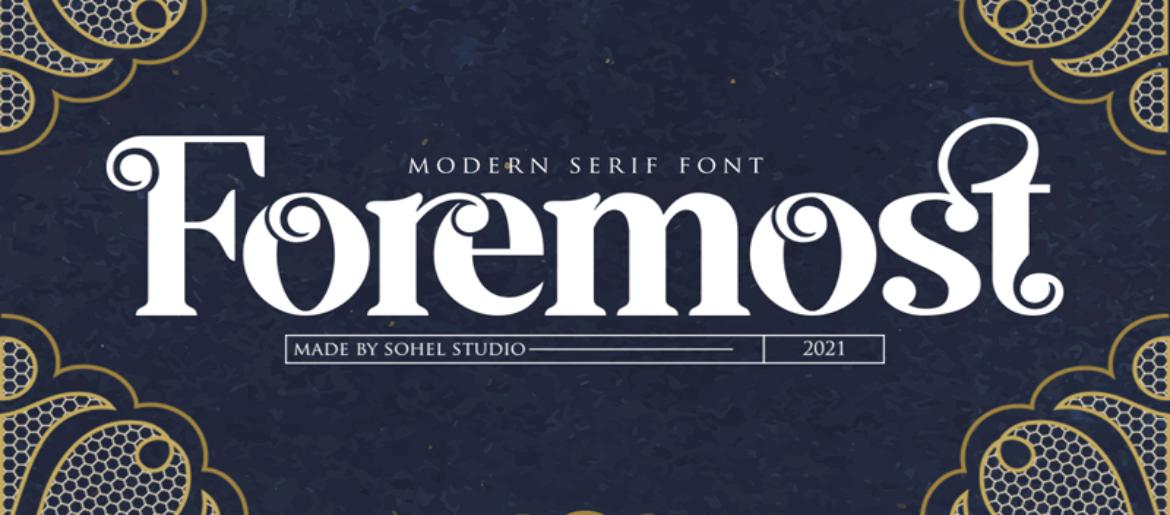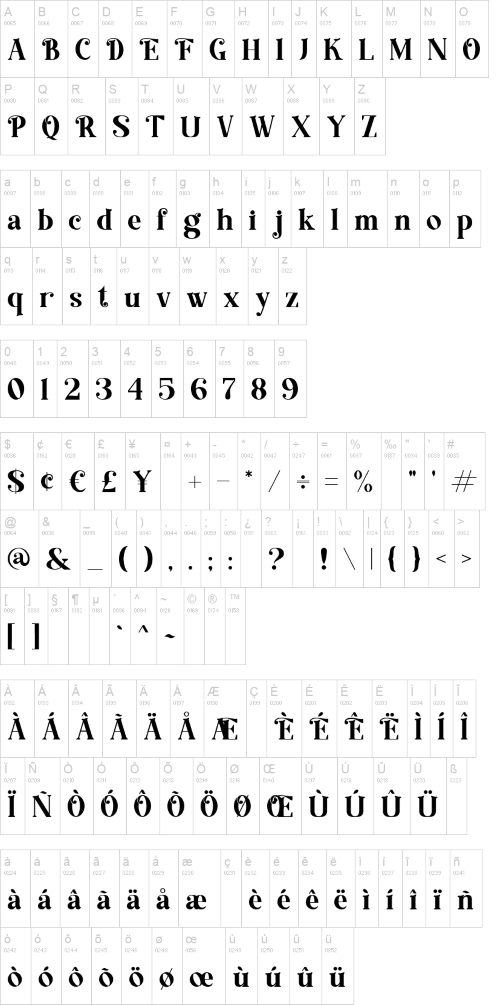
Foremost Font
Foremost Font is a bold, modern display typeface designed to make a strong visual statement. With its clean geometry, solid structure, and confident weight, it works perfectly for headlines, logos, posters, and branding. Foremost delivers clarity, strength, and a professional contemporary look in any design.
Font Name:  Foremost
Designer: Sohel Studio